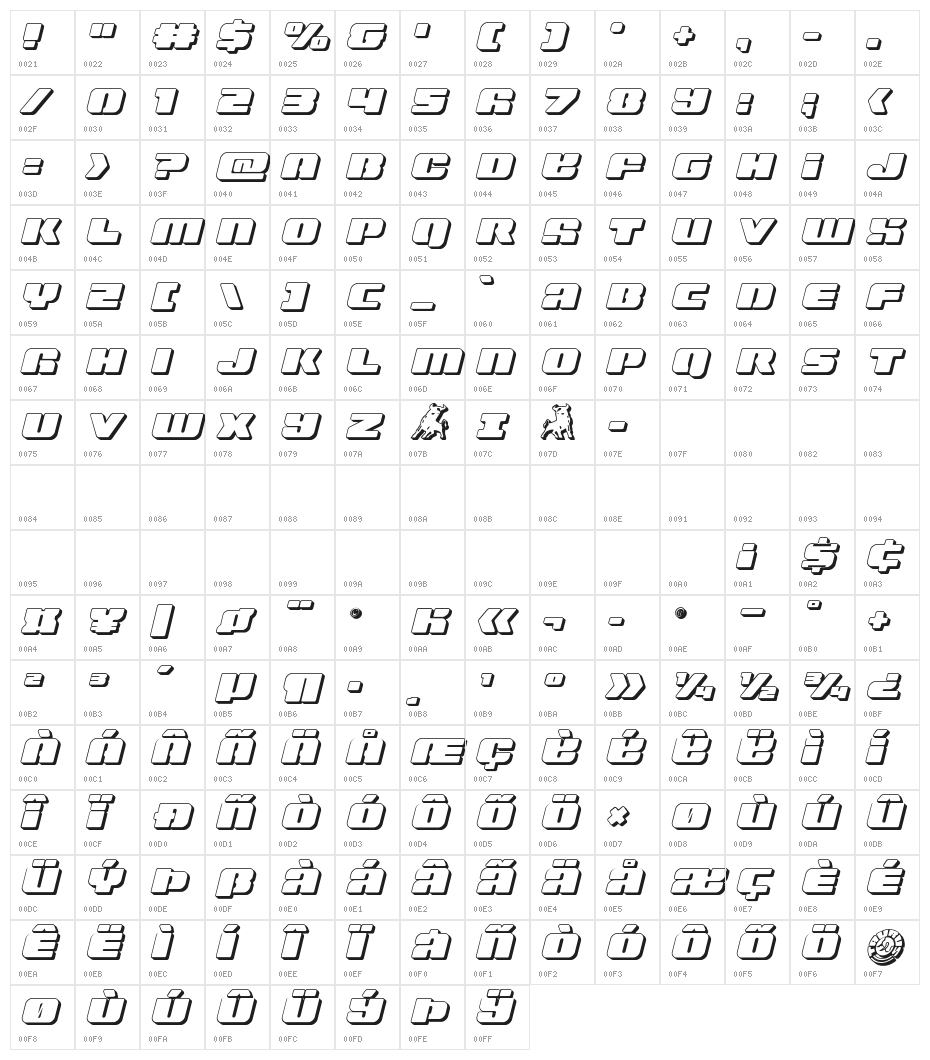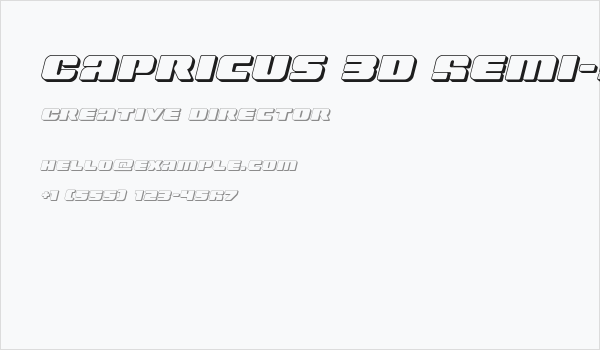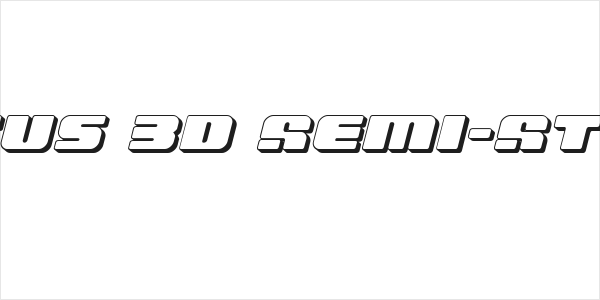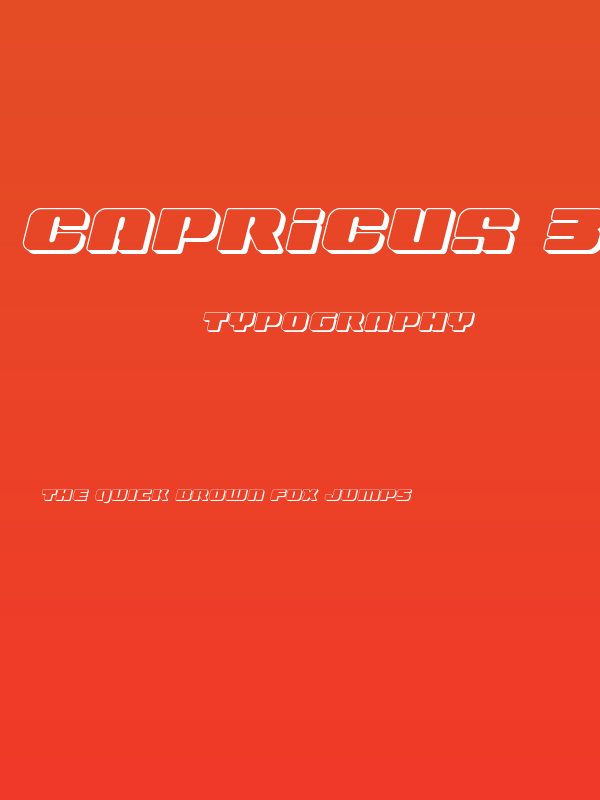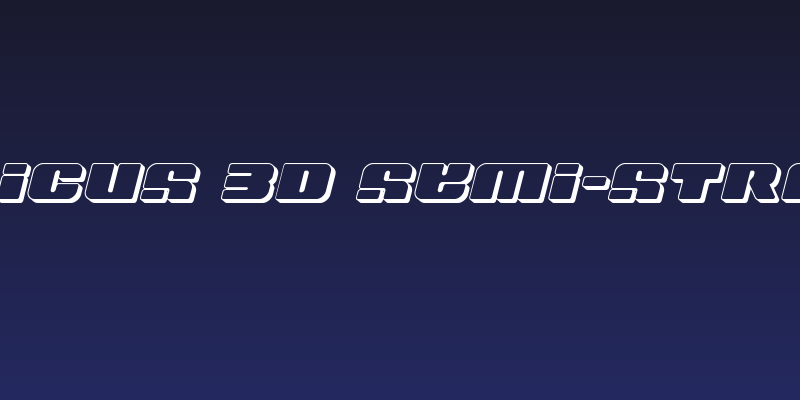
Capricus 3D Semi-Straight Font
Capricus 3D Semi-Straight Description
This font features a bold, three-dimensional appearance with semi-straight edges, giving it a modern and futuristic look. The characters are outlined with a shadow effect that enhances the 3D illusion. The uppercase and lowercase letters maintain a consistent style, with a geometric structure that is both eye-catching and readable. The numbers and special characters follow the same design principles, ensuring a cohesive appearance across all glyphs. The font's unique style makes it suitable for projects that require a strong visual impact.
| Proposed Projects | Ideal for video game titles, tech branding, futuristic posters, and digital artwork. |